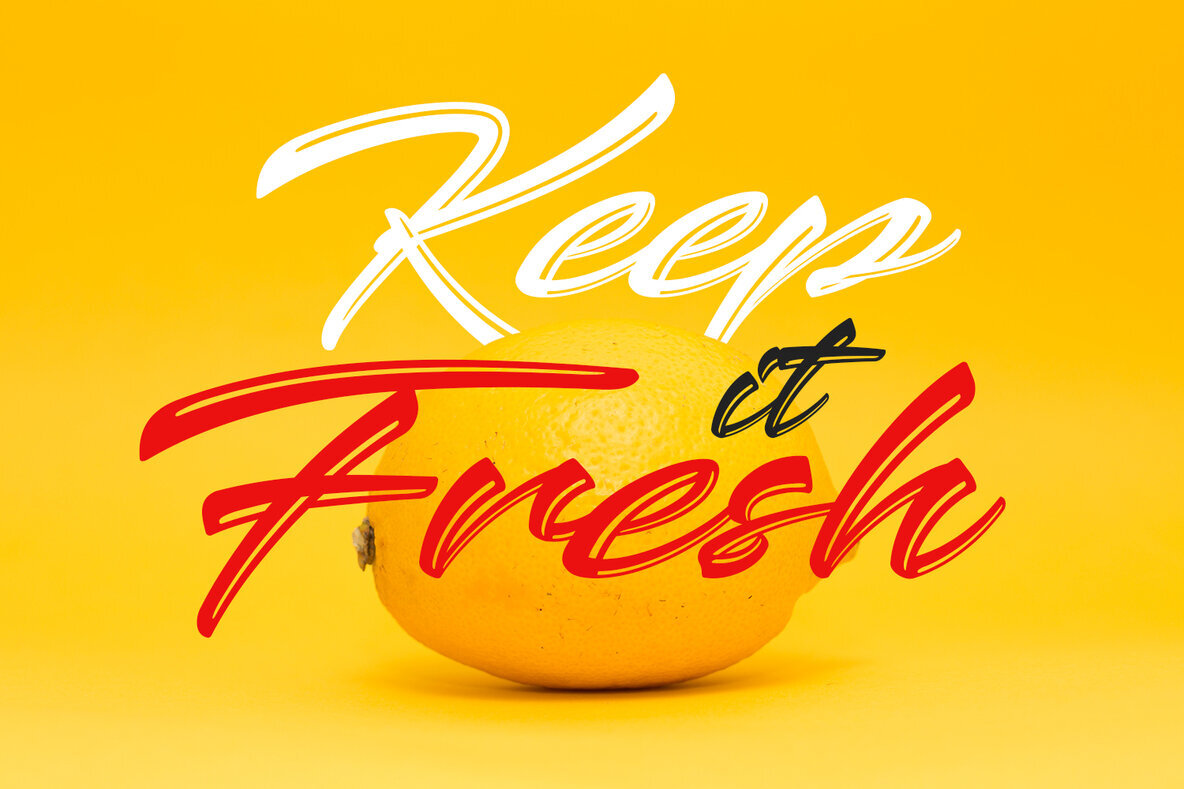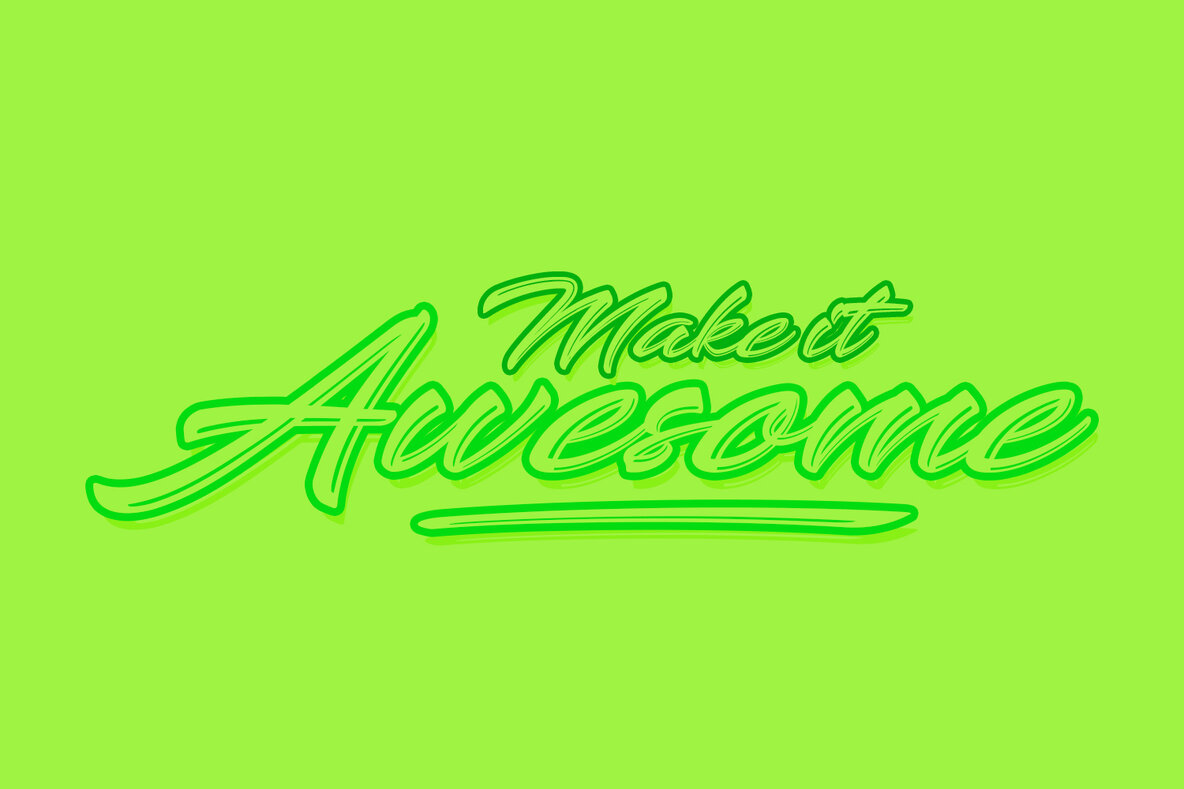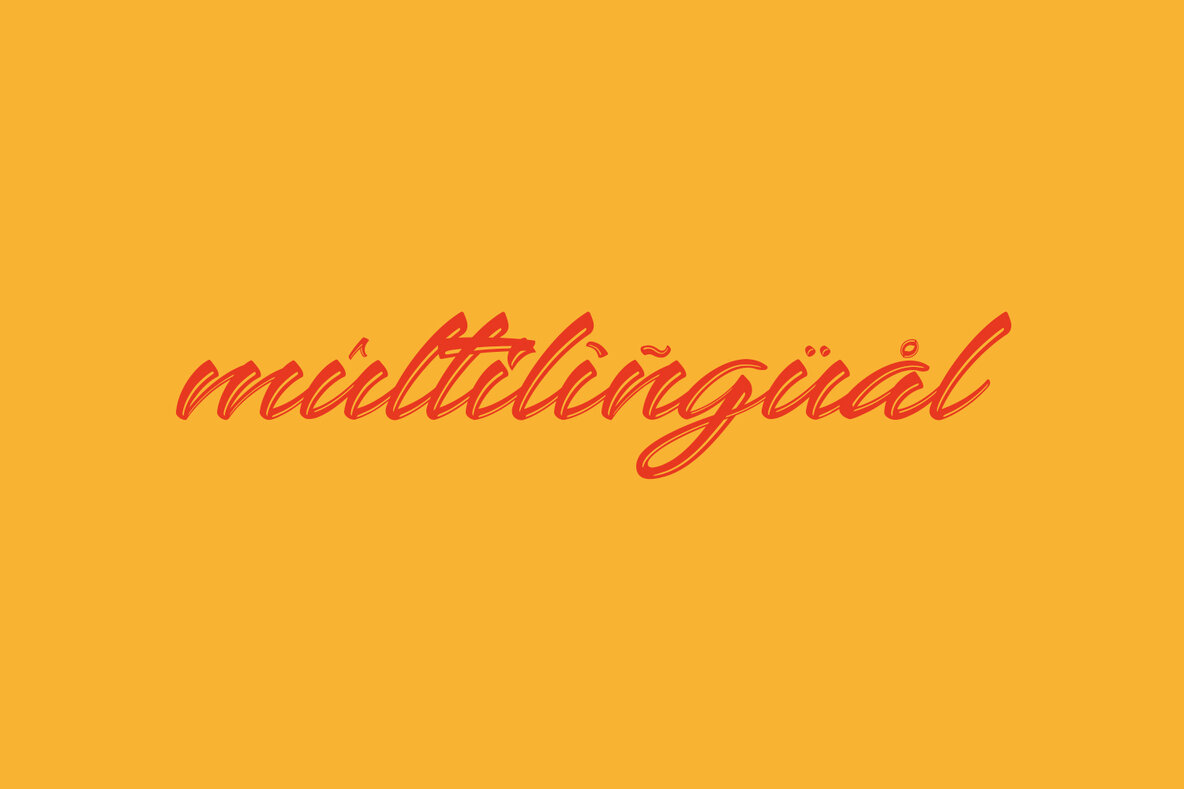
Keshya Font
Keshya Regular
Keshya offers a modern script with a distinctive line texture, tailored for a wide range of design projects. Whether you're working on an event invitation or a branding project, this font infuses every piece with an artistic flair.Keshya: A Contemporary Script for Dynamic Designs